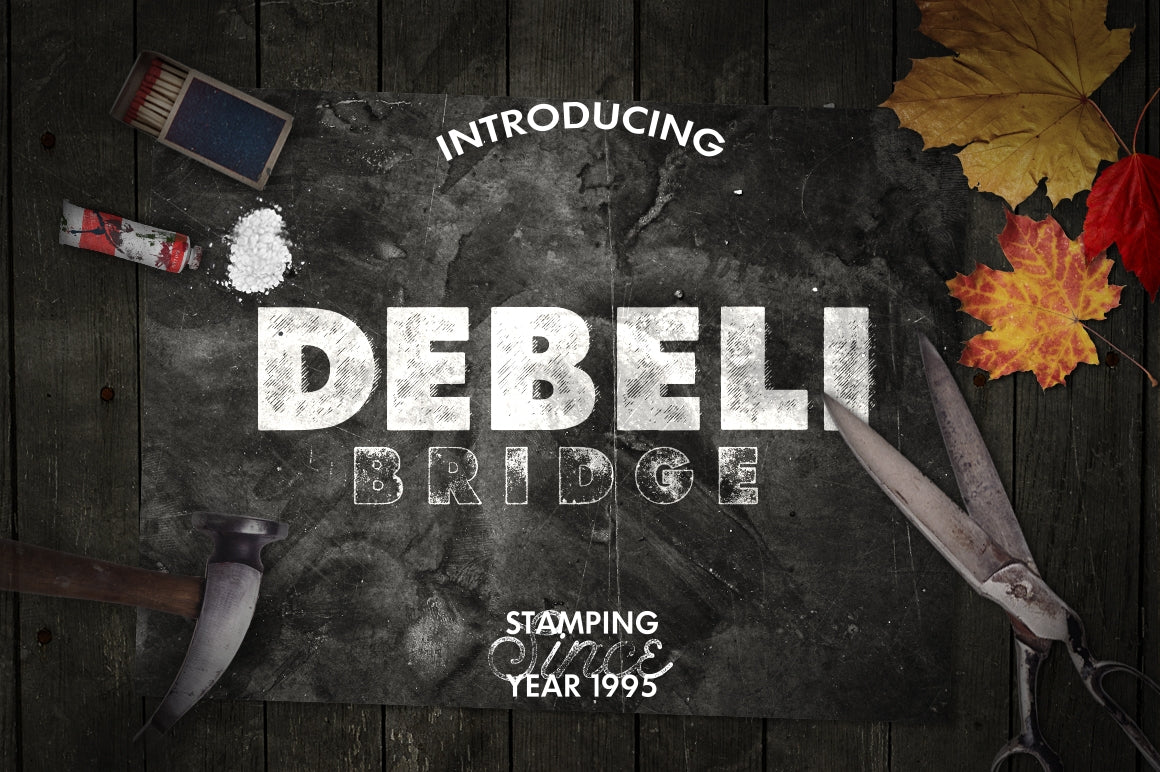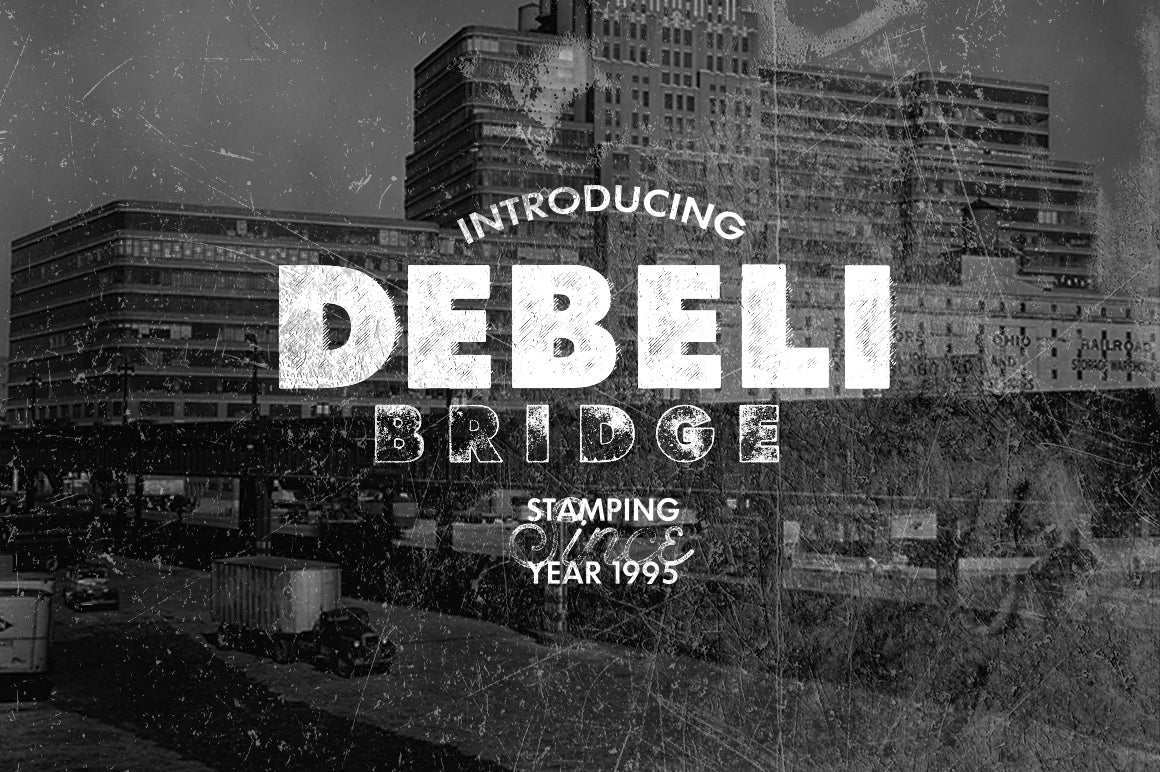
Debeli 2 Typeface
Debeli 2 Typeface - With this font you get two grunge/stamped style typefaces.
This old school textured typeface is a great choice for vintage and retro design and creative projects.